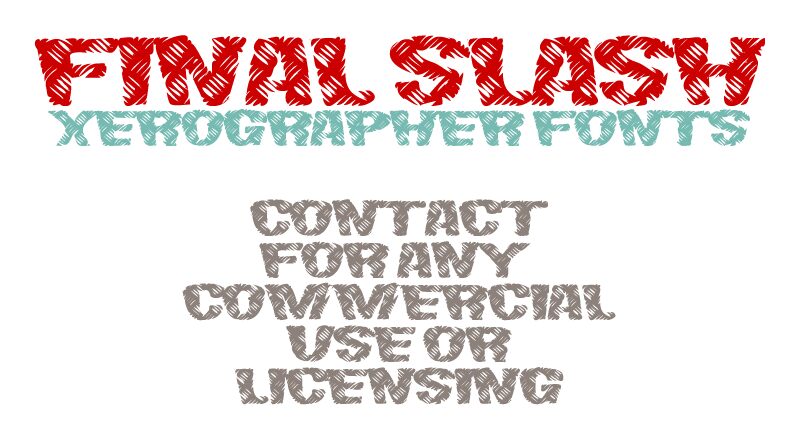
FinalSlash by Xerographer Fonts is a free cartoon display font with broad, weighty letters whose ragged edges and dense interior cuts create a dark, restless silhouette across each word. The repeated diagonal cuts suggest fur or rough feathers.
Wildlife, jungle, and comic adventure themes suit its unruly texture, especially on children's game graphics, zoo event posters, and character merchandise. On snack packaging or illustrated book covers, the striped motif can become part of an animal-themed image rather than merely decorating the words.
FinalSlash